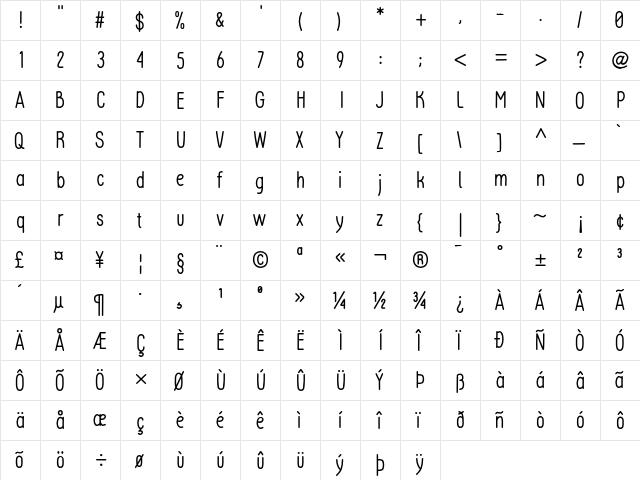
Calypso Nathalie_PersonalUse Regular
| Designer | Angga Yudhistira |
Design Context for Calypso Nathalie_PersonalUse Typeface
Calypso Nathalie_PersonalUse offers clean, dependable letterforms without strong stylistic allegiance, making it a practical choice for designers who need flexibility.